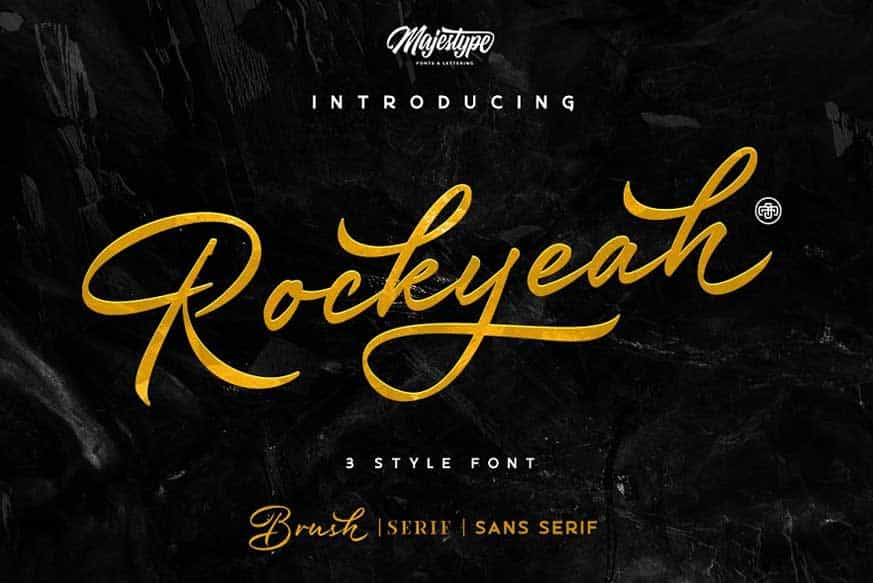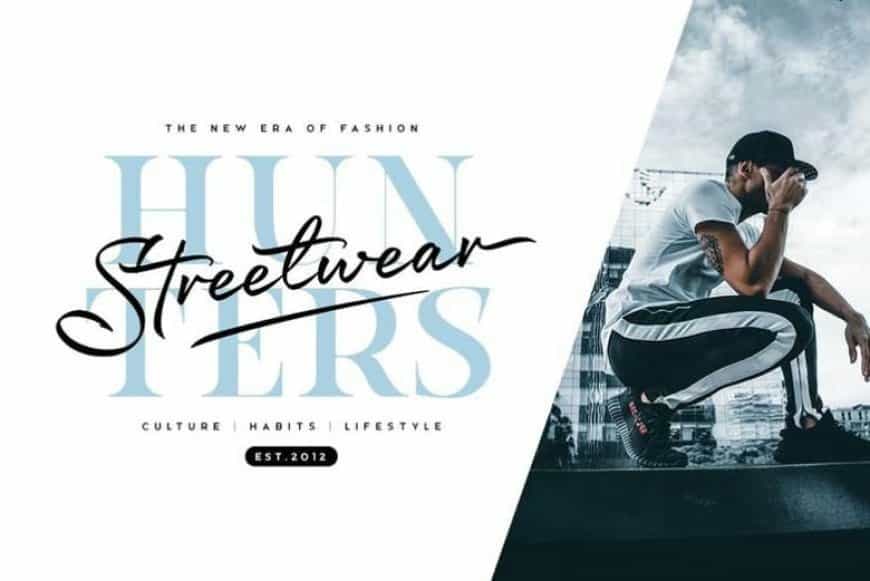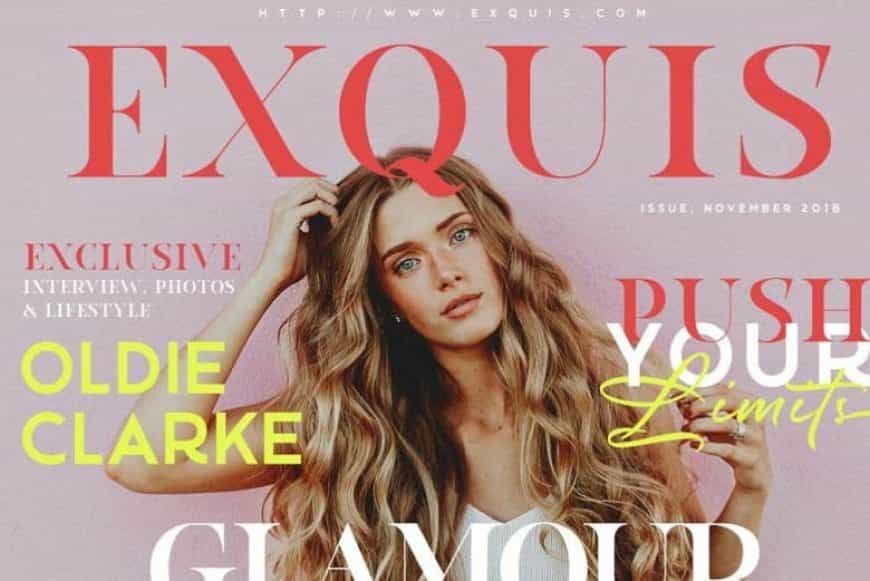
Rockyeah is an elegant display font, carefully handcrafted to become a true favorite. Its mildly charming character makes it an absolutely comfortable appearance; versatile too for all occasions.